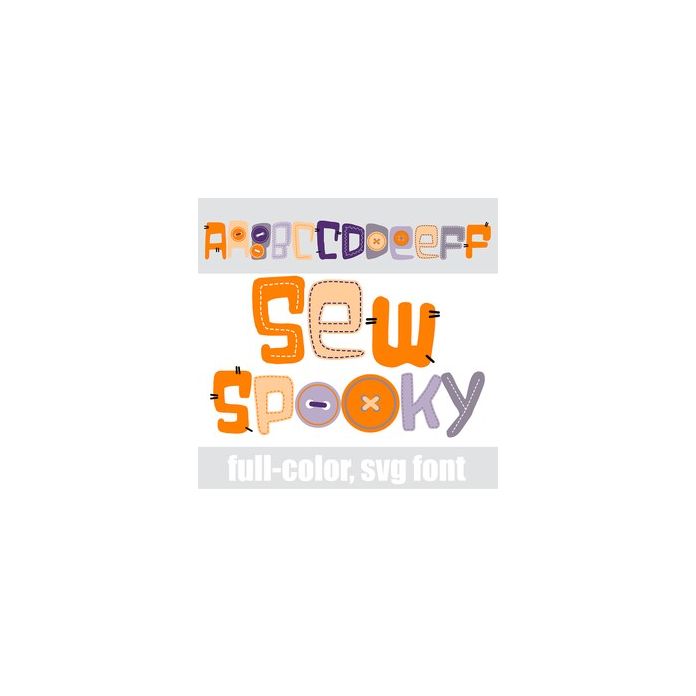
This full-color font features a Halloween color palette, stitches, buttons and more. There is an alt case w/ additional colors you can access through your system or Silhouette's glyph map.